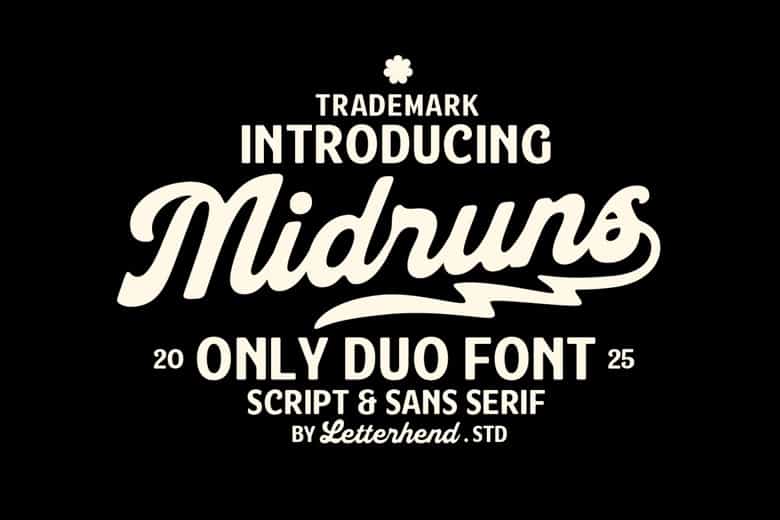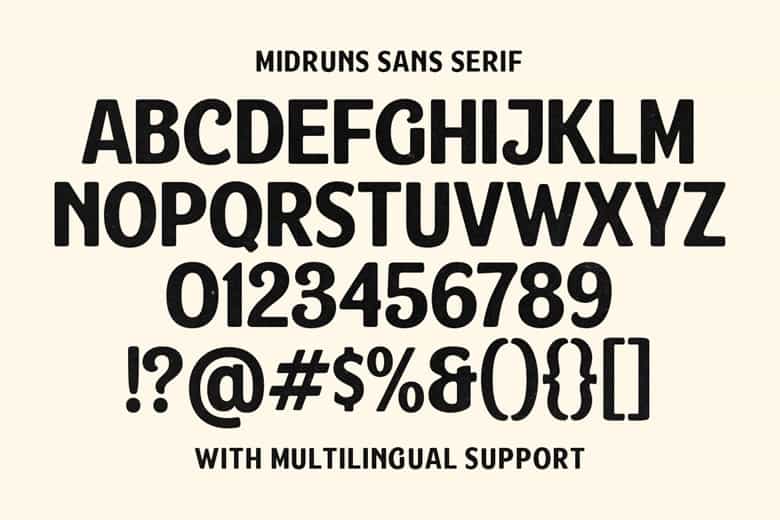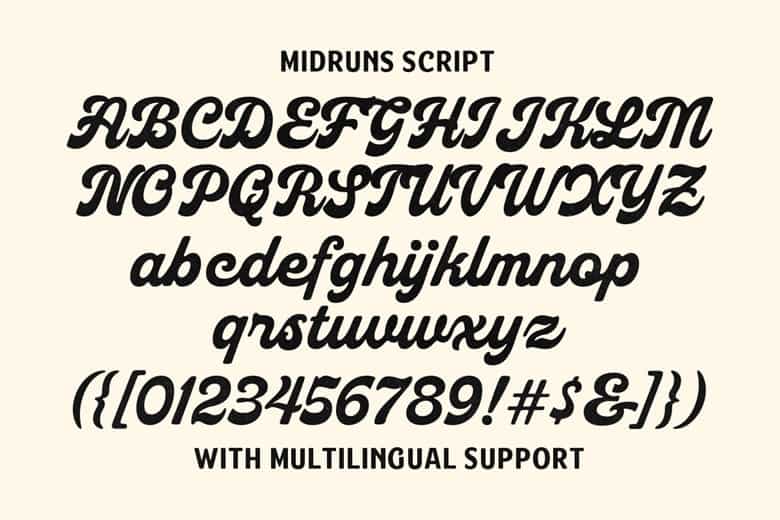
The Midruns font is a dynamic duo of bold script and sans serif styles great to add a vintage, yet modern, touch to any of your design. Smooth curves, retro vibe and body this is the font that you will necessary for logos, branding, packaging, apparel, signage and social media graphics. Both the sans serif counterpart are clear & versatile, but the script font exudes electricity & personality.